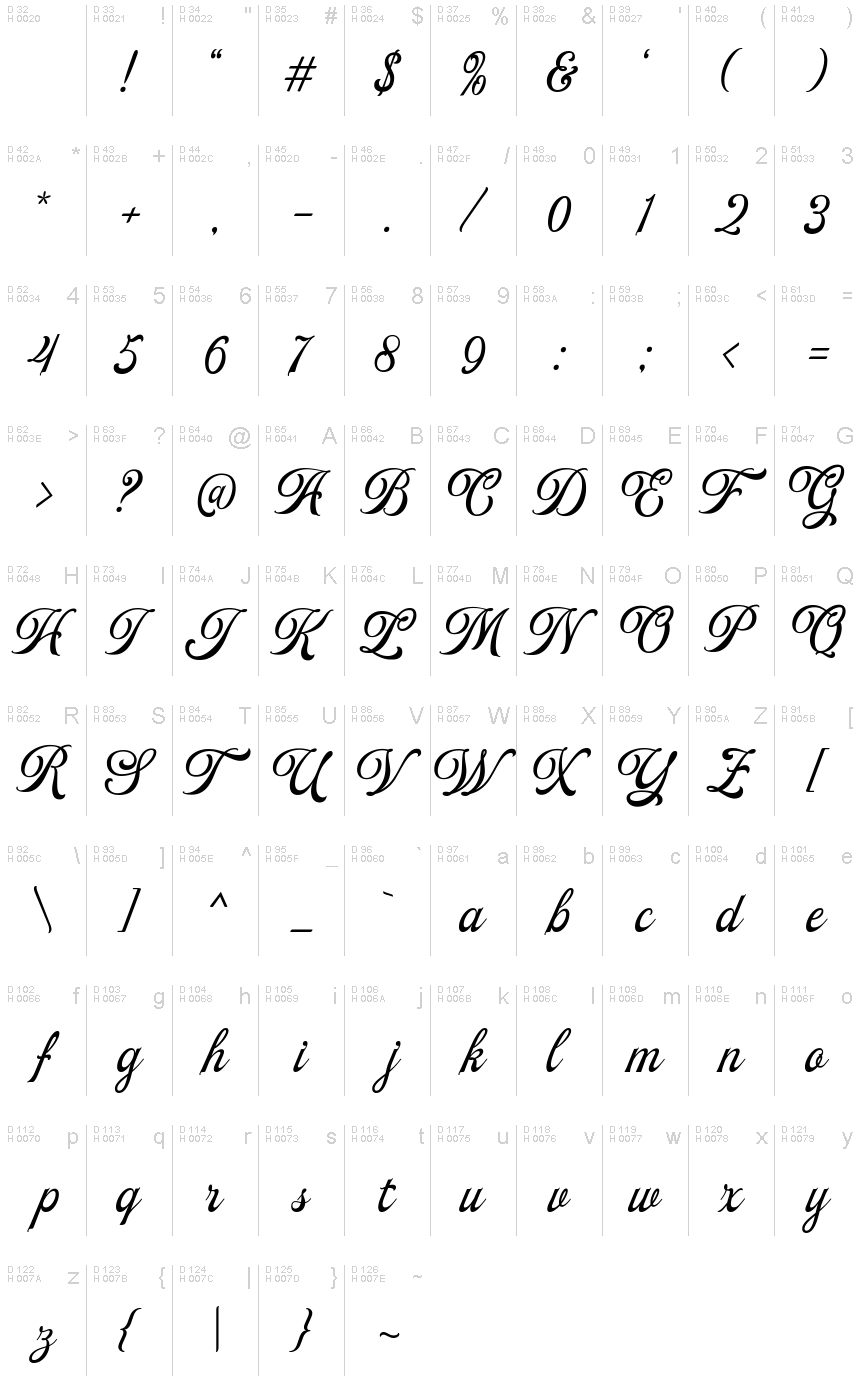
BeautyReflectionsDEMO
Beauty Reflections by Letterhend Studio captivates with its elegant, flowing calligraphic design. This font exudes sophistication and charm, characterized by graceful curves and delicate flourishes that dance across the page. Its enchanting letterforms are perfect for evoking a sense of luxury and artistry.
Ideal for wedding invitations, branding projects, or any design needing a touch of romance, Beauty Reflections adds an inviting warmth to every composition. The lightness of the font combined with its fluid strokes ensures that it remains legible while still making a striking visual impact. Whether used in print or digital media, this stunning typeface promises to elevate any creative endeavor, leaving a lasting impression on all who encounter it.